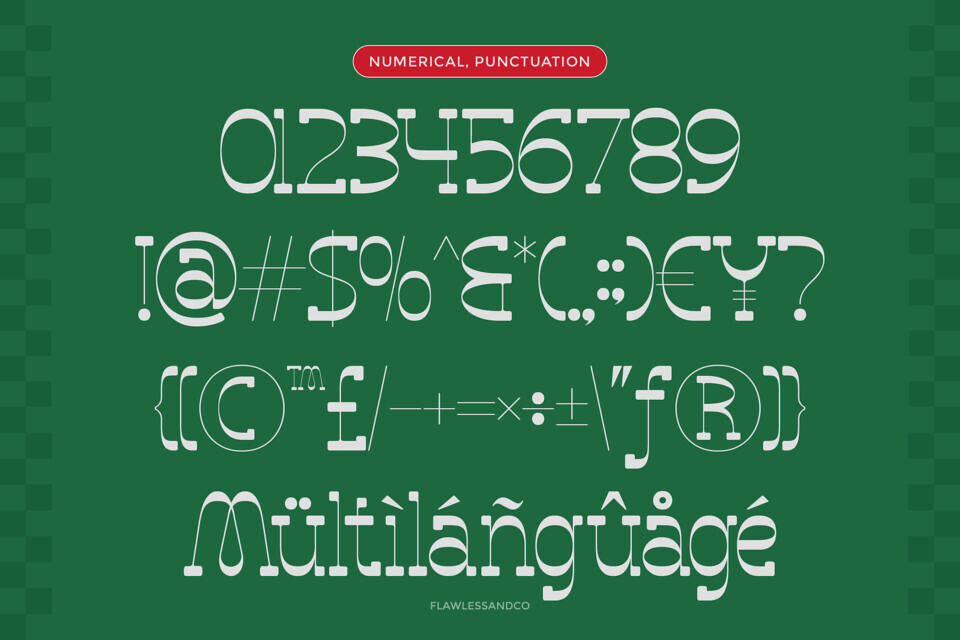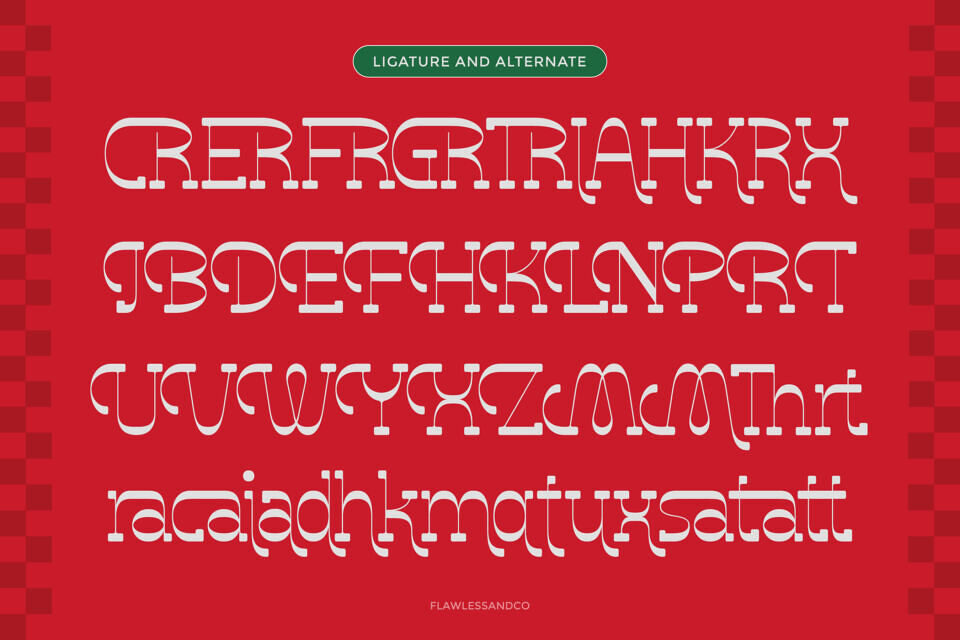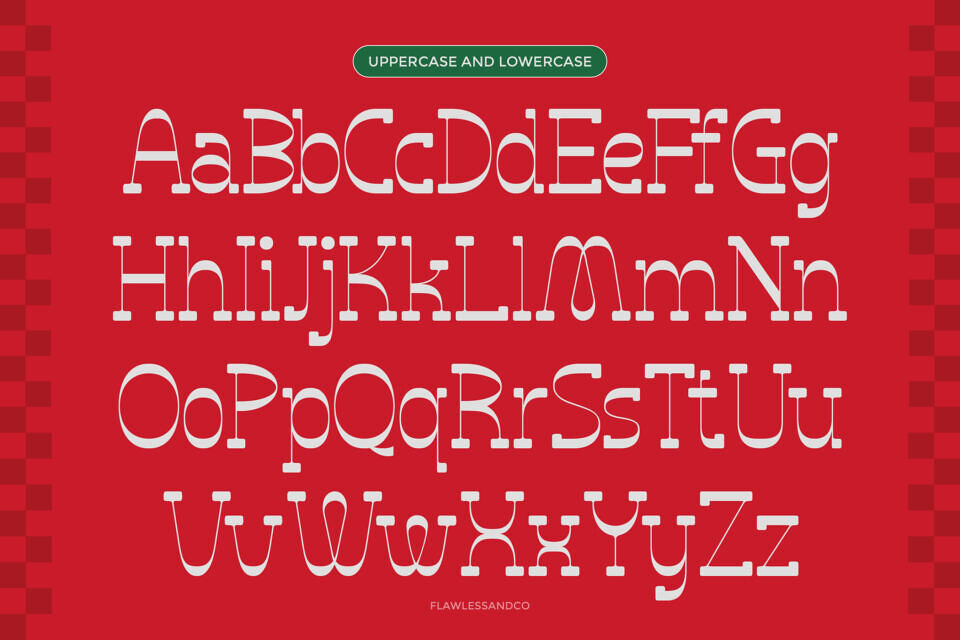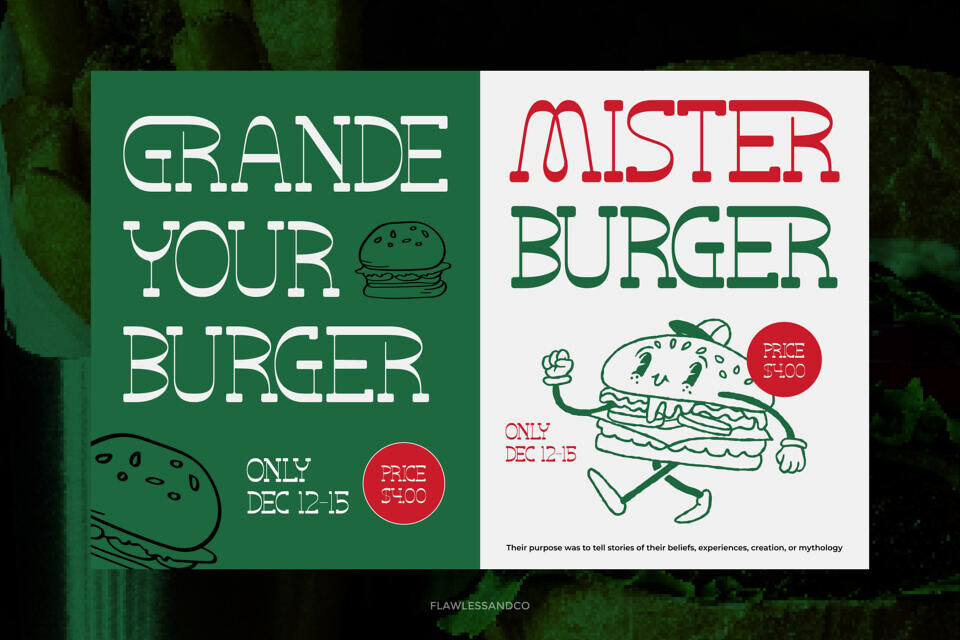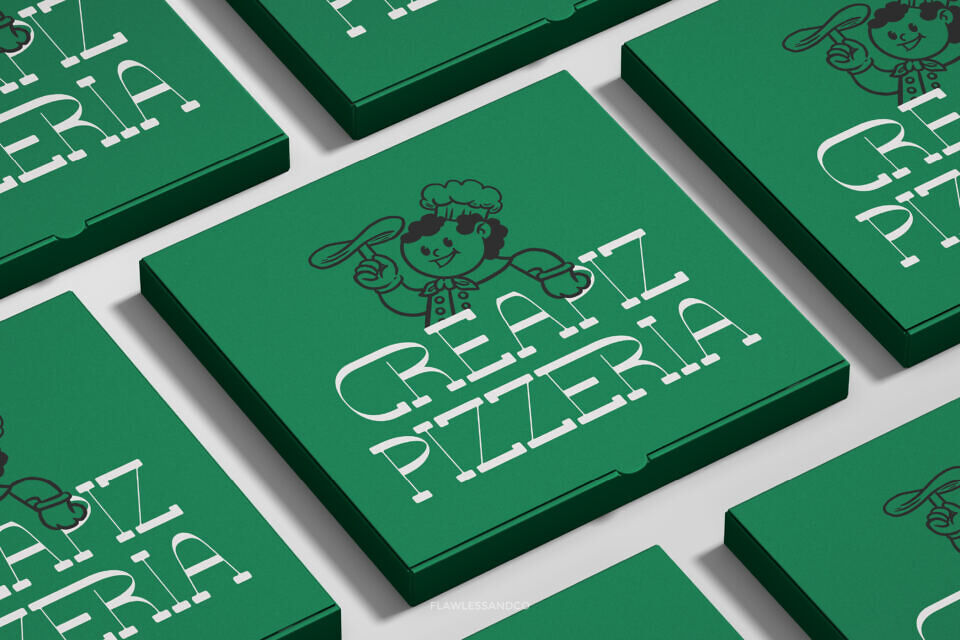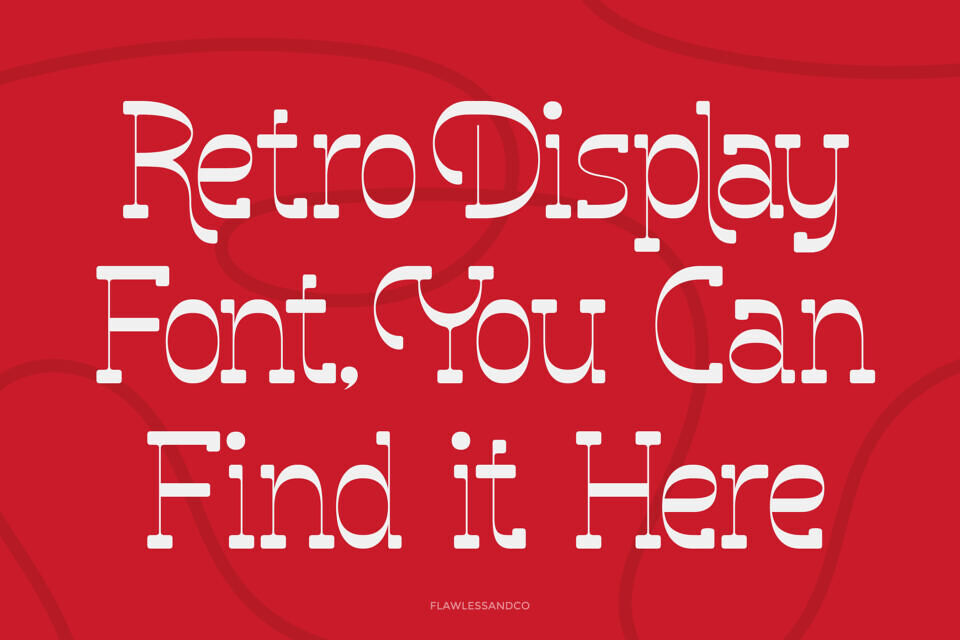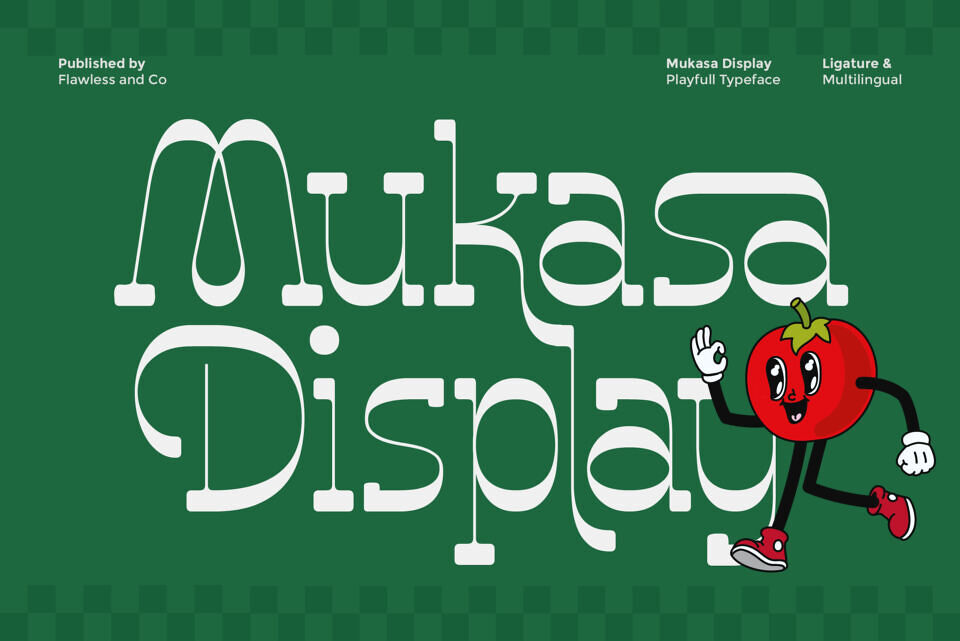
Mukasa Font
Mukasa is a playful and bold display typeface designed to bring joy, character, and visual impact to your designs. With its rounded forms, quirky curves, and expressive details, Mukasa delivers a fun personality that instantly grabs attention while remaining clear and readable.
This font is perfect for projects that need a cheerful, friendly, and creative feel. Mukasa shines in branding, packaging, posters, and any design that wants to stand out with a unique and lively voice.